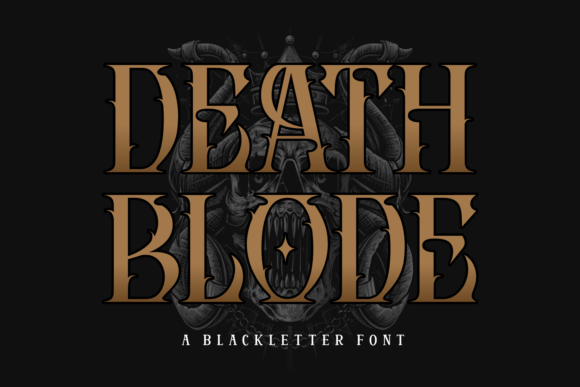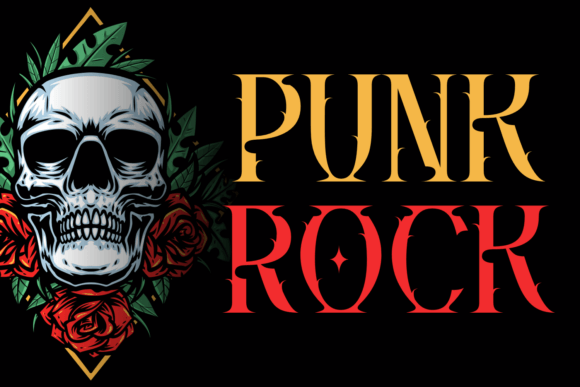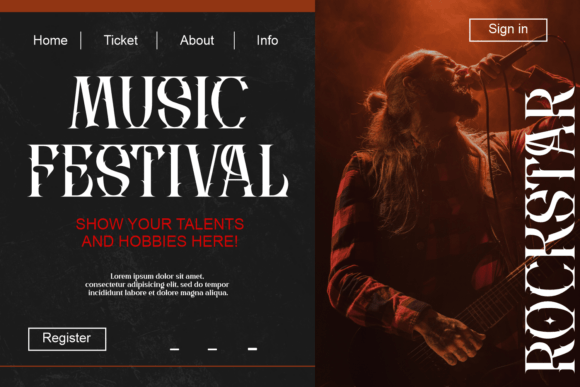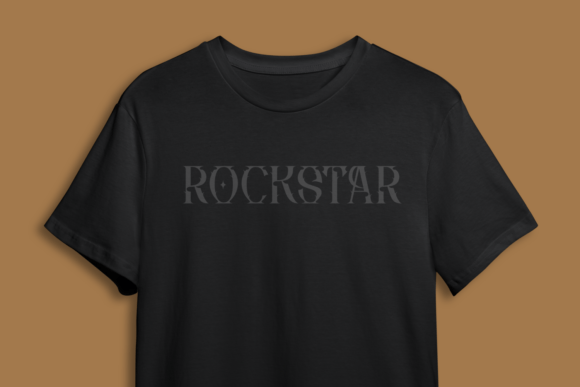
Death Blode Font: Bold Blackletter for Edgy Logo Design
About the Death Blode Font
Unleash your creativity with Death Blode Font, a versatile font perfect for a wide range of applications. Death Blode is a striking blackletter font that exudes a dark, gothic aesthetic. Perfect for edgy designs, its sharp, intricate strokes evoke medieval manuscripts and heavy metal vibes. Ideal for logos, posters, or album covers seeking a bold, dramatic, and rebellious visual impact.
Death Blode excels in headline treatments, short impactful phrases, and branding applications where a strong, rebellious personality is desired. It’s particularly effective for projects related to music (heavy metal, gothic rock), fantasy, horror, or gaming. Avoid using it for body text or UI elements; its intricate detail and high x-height make it unsuitable for long reads.
Pair Death Blode with a clean sans-serif like Montserrat or a geometric sans-serif like Futura for contrast and readability. For a more traditional feel, a classic serif such as Garamond or a more modern serif like Playfair Display could work well, softening the harshness of the blackletter while maintaining a sense of sophistication.
The font’s core personality is bold, dramatic, and rebellious, making it perfect for conveying power, mystery, or a sense of dark elegance. It’s not suitable for projects requiring approachability or a friendly feel.
Death Blode Font Usage Examples
Death Blode Font Example